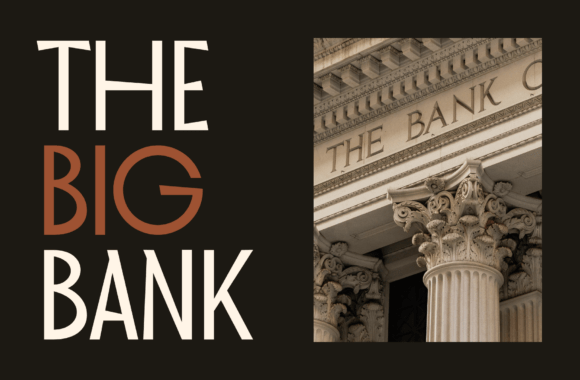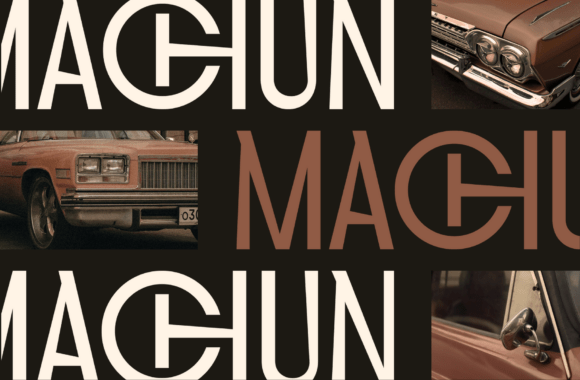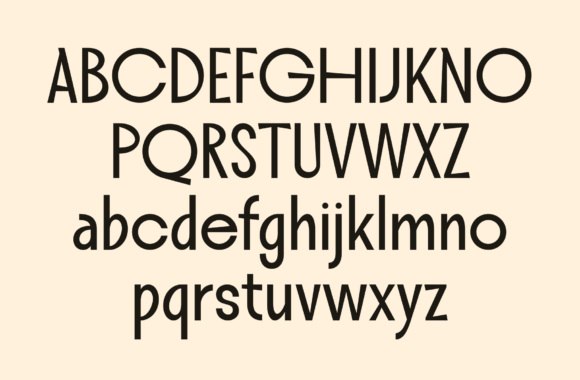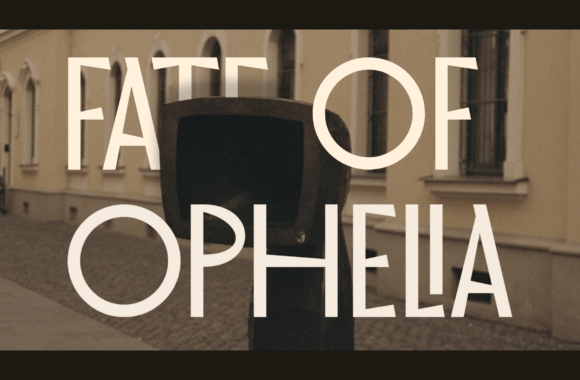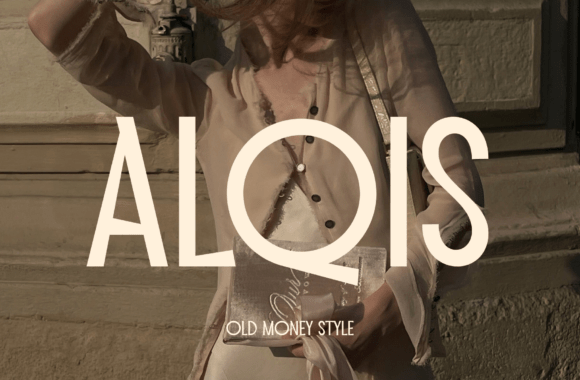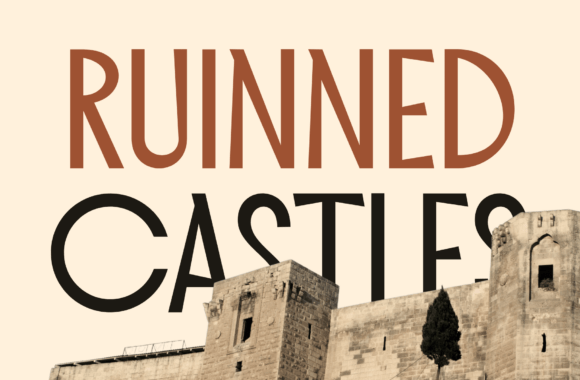
Introduction to Machun Font
Have you ever stared at a blank page, searching for the perfect font to bring your creative project to life? The blank space can be intimidating, but sometimes all it takes is one special font to spark inspiration. That’s exactly what Machun Font is designed to do – ignite your imagination and elevate your designs to the next level.
As a designer, you’re constantly on the lookout for that perfect design resource to give your work a professional touch. Machun Font is a high-quality, elegant display font that’s perfect for editorial layouts, branding, and more. With its clean lines, unique character shapes, and balanced proportions, this font provides a transparent background for your creative vision to shine through. Whether you’re working on a digital or print project, Machun Font is a valuable addition to your design arsenal, available for free download and ready to take your designs to new heights.
Key Features of Machun Font
- Unique, modern font style suitable for various design applications, including digital and print media.
- Comes with a transparent background, making it easy to use in different design contexts.
Honest Review: Machun Font
I recently stumbled upon the Machun Font, and I must say it’s a gem for designers. This free download has been a game-changer for my creative projects, providing a unique touch that sets my work apart.
- High-quality design: The Machun Font boasts a crisp, clean design that’s perfect for both digital and print projects.
- Transparent background: This feature is a must-have for designers who want to add a subtle touch to their designs.
- Limited font styles: While the Machun Font is a great addition to any design resource, it’s limited to a single style, which might not be suitable for all projects.
- Not suitable for bold text: The font’s design might not be ideal for bold text, as it can become difficult to read.
Overall, I’m impressed with the Machun Font’s performance. It’s a solid addition to any design resource and has the potential to elevate your creative projects. However, it’s essential to consider its limitations before using it for your next design endeavor.
Machun Font
Tips for Getting the Most Out of Machun Font
Use the Machun Font with a transparent background to create a unique and creative design. Experiment with different font sizes, colors, and styles to add visual interest to your design project. You can also use the font in combination with other design resources to create a high-quality design.
The Machun Font is suitable for various creative projects, including graphic design, digital art, and typography. You can use it to create posters, flyers, business cards, and other marketing materials. The font’s unique design makes it perfect for creative projects that require a touch of elegance and sophistication.